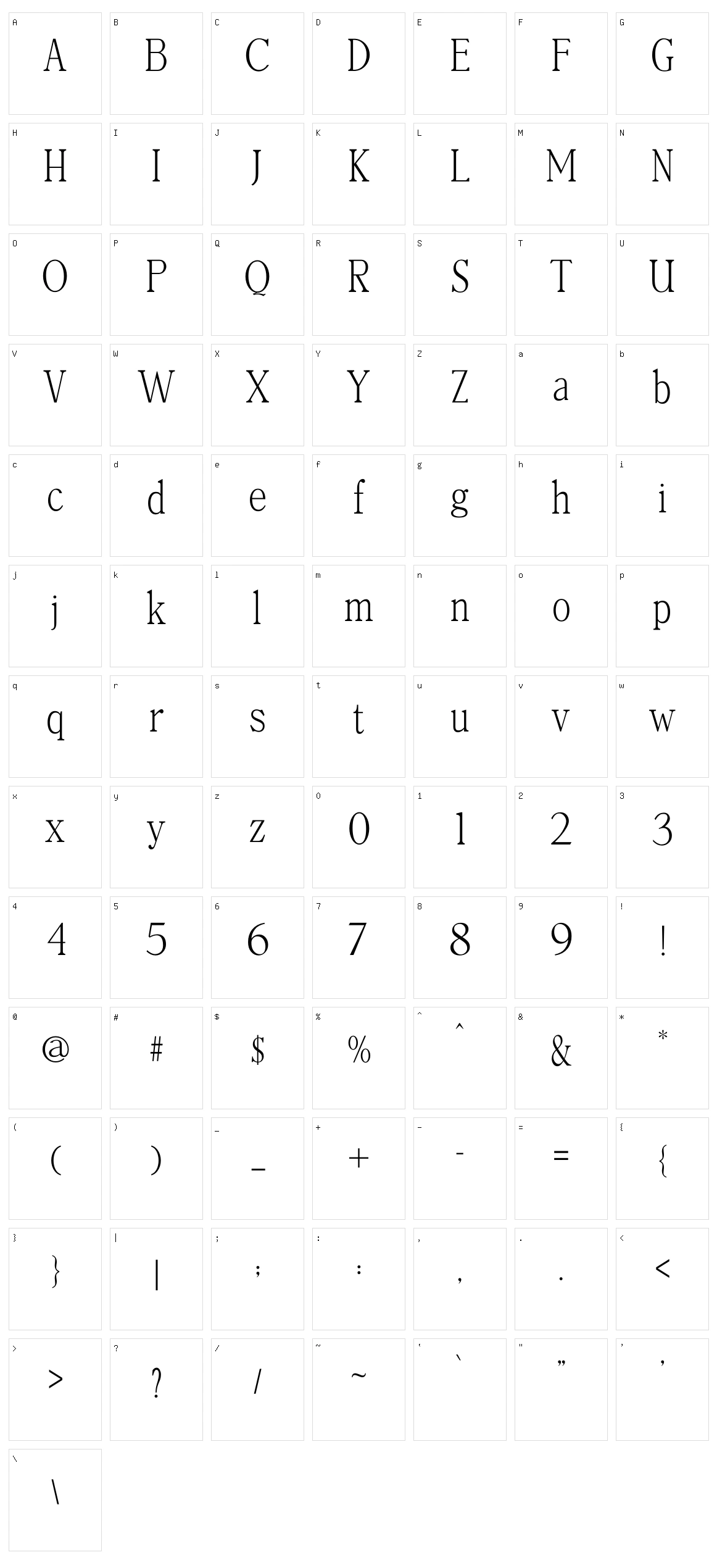
The free font Nebos is carefully designed by Font Kingdom, showcasing a thoughtful balance of creativity and usability and falls under the Serif font style. When you download the ZIP file, it contains only 99.13 KB of font files, making it lightweight and quick to download. Please review the license details below to understand permitted usage and distribution rights. If license information is not available, we recommend using this font for personal projects only or contacting the author directly for commercial usage permissions.